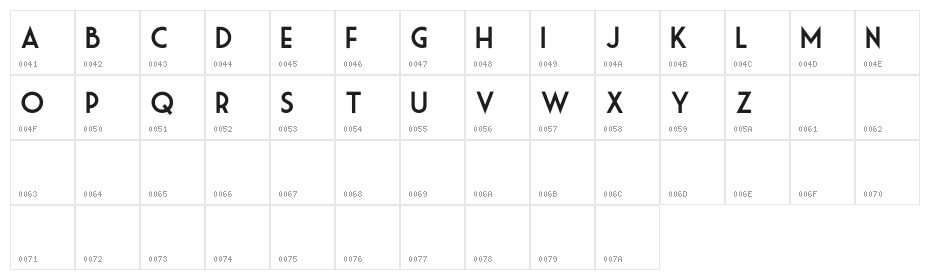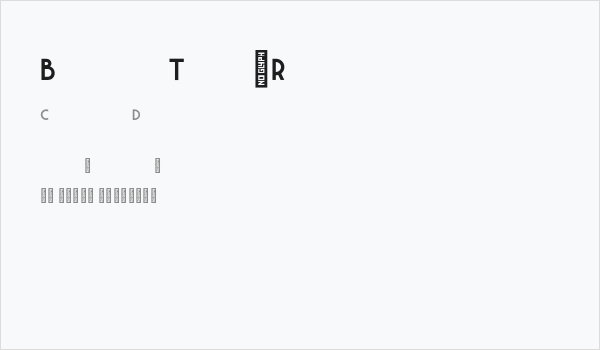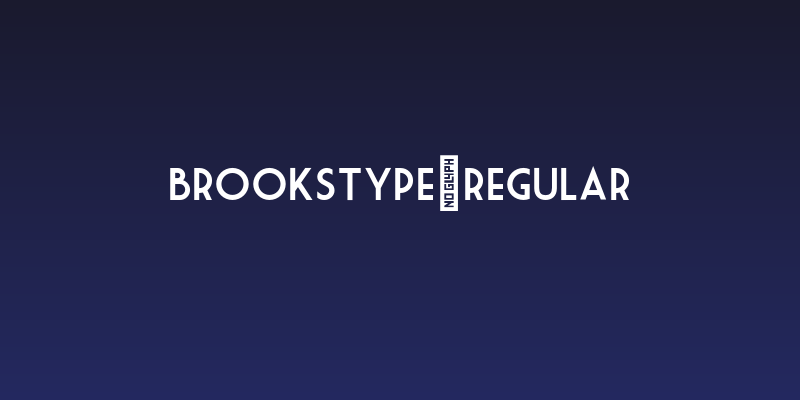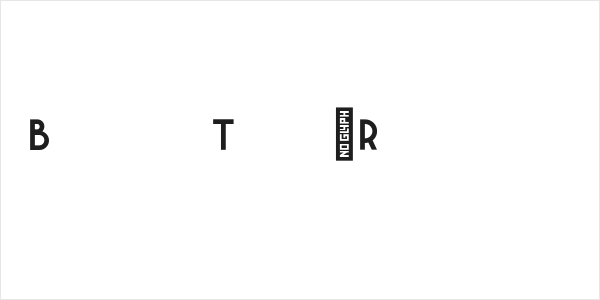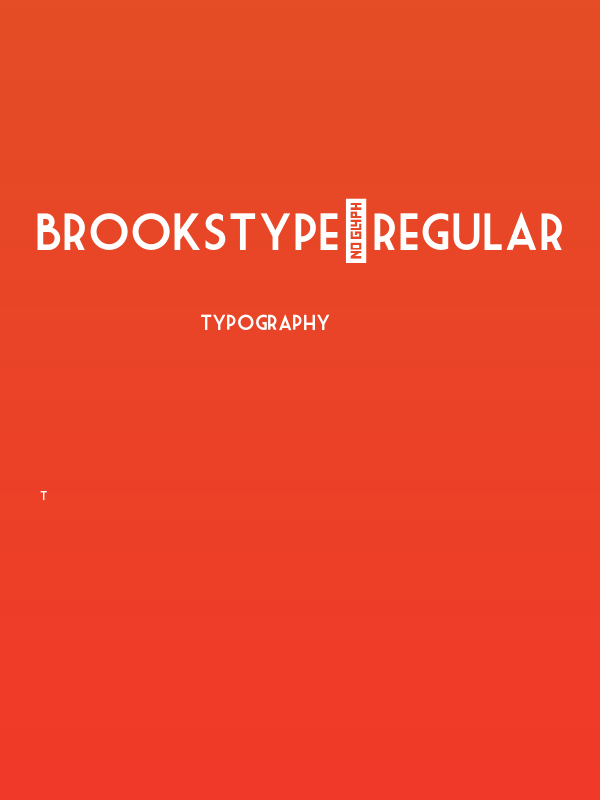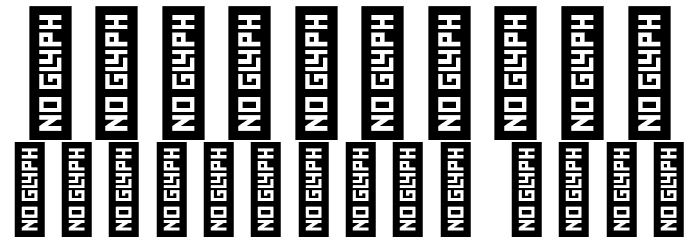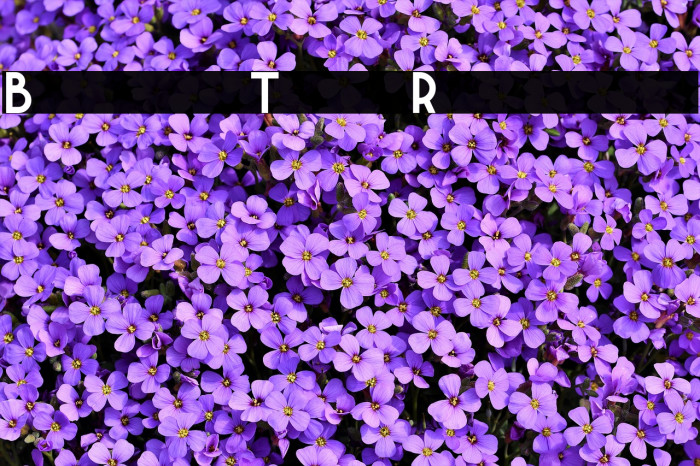
BrooksType-Regular Font
BrooksType-Regular Description
This typeface features a bold and geometric design, characterized by clean lines and sharp angles. The uppercase letters exhibit a uniform height and consistent stroke width, creating a sense of balance and modernity. The absence of lowercase letters and numerals suggests a focus on impactful, uppercase-only text. The font's simplicity and clarity make it suitable for various design applications where readability and a contemporary aesthetic are desired.
| Proposed Projects | Ideal for branding, headlines, posters, and signage where a modern and impactful look is needed. |